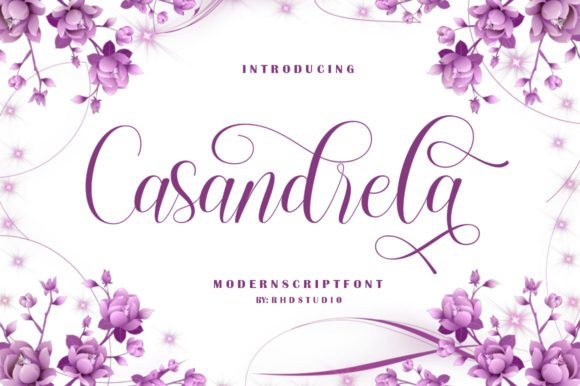
Introduction to Casandrela Font
Casandrela is a sophisticated handwritten font.
Fall in love with its authentic feel and use it to create gorgeous wedding invitations, beautiful stationary art, eye-catching social media posts, and cute greeting cards This font is PUA encoded which means you can access all of the cute glyphs and swashes with ease.
Casandrela Font offers exceptional quality and versatility, making it a valuable addition to your design toolkit. Whether you’re creating for personal projects or commercial use, Casandrela Font delivers professional results.